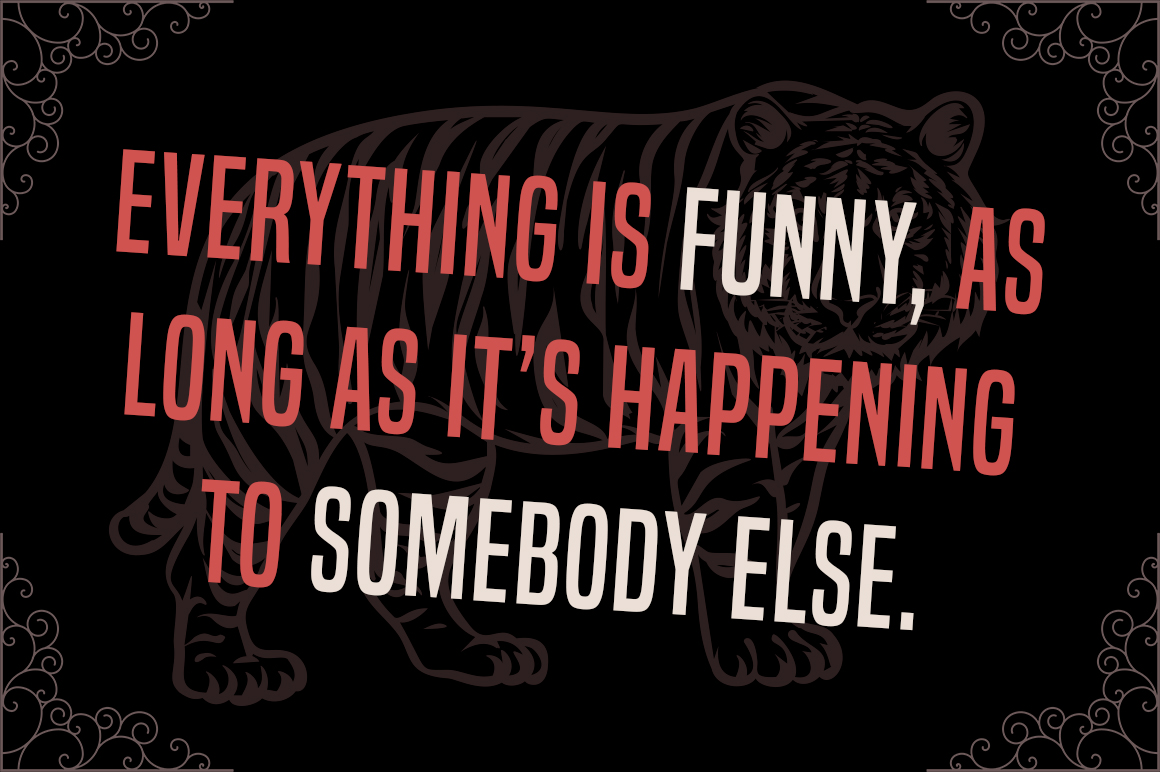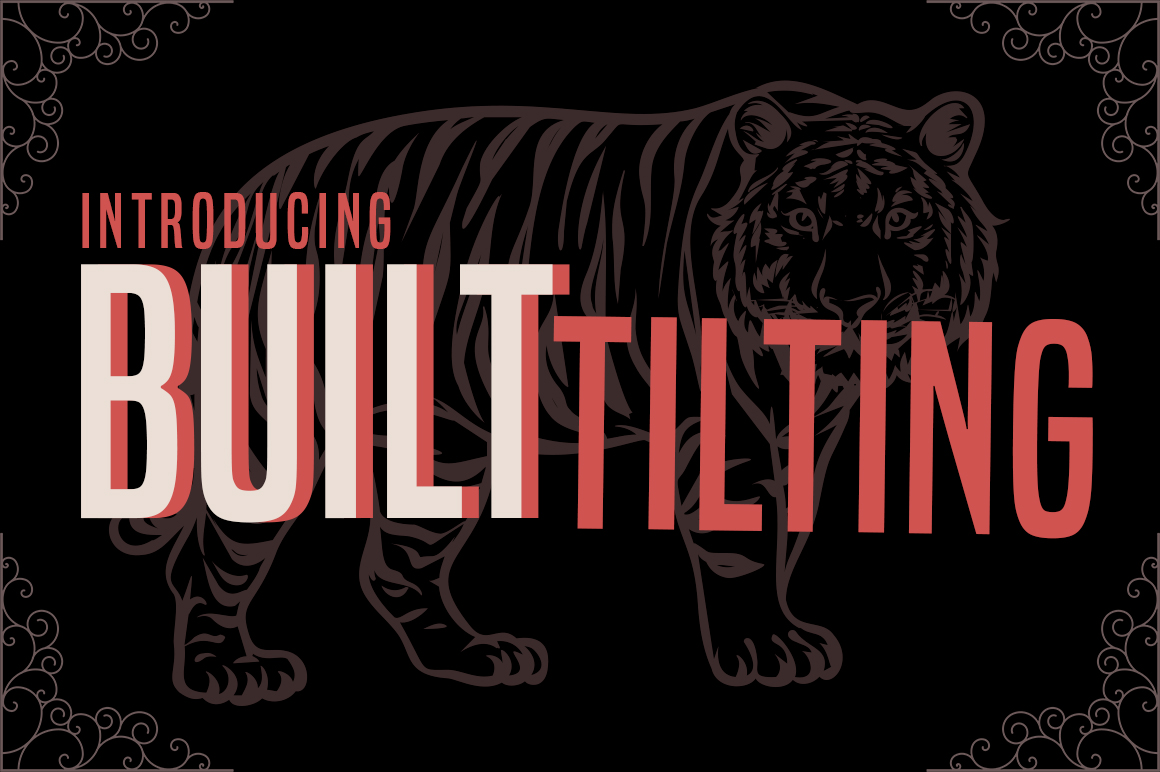
Built Tilting
About Built Tilting Font
Built Tilting has one job: making solid, compact headlines onscreen. It features a modern and solid style and it is perfect for headlines, posters, and flyers.Get this free font from Typodermic!